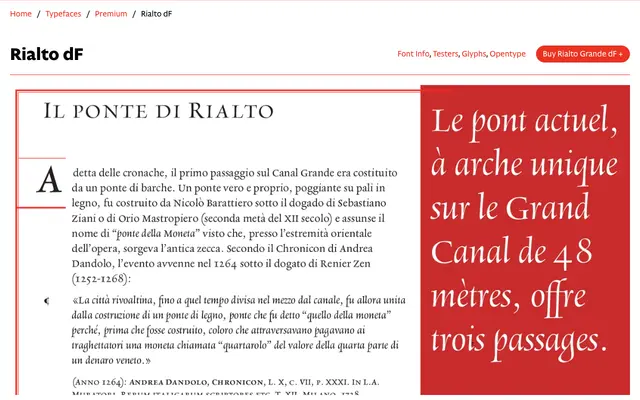
Rialto dF
A book typeface rooted in humanistic calligraphy, drawn by Giovanni De Faccio and Lui Karner from 1995 and offered in two optical sizes for different point-size ranges.
Born from a collaboration between the Austrian Lui Karner and Venetian Giovanni De Faccio, the letterforms were drawn directly in digital format from humanistic models carried in the designers' hands and memory. The roman and italic relationship follows the convention established by Francesco Griffo for Aldus Manutius's 1501 Virgil octavo, with uppercase, numerals and punctuation used alongside the italic. Two optical subfamilies -- Piccolo for sizes up to 14pt and Grande for 16pt and above -- are supported by an extensive set of OpenType features developed by Karsten Luecke, including small capitals, oldstyle figures, swash characters, discretionary ligatures and multiple stylistic sets.
Letterforms drawn directly from humanistic calligraphic tradition, with a roman and italic relationship modelled on Francesco Griffo's italic for Aldus Manutius. The calligraphic origins and Renaissance Venetian references place it firmly in the humanist serif category.